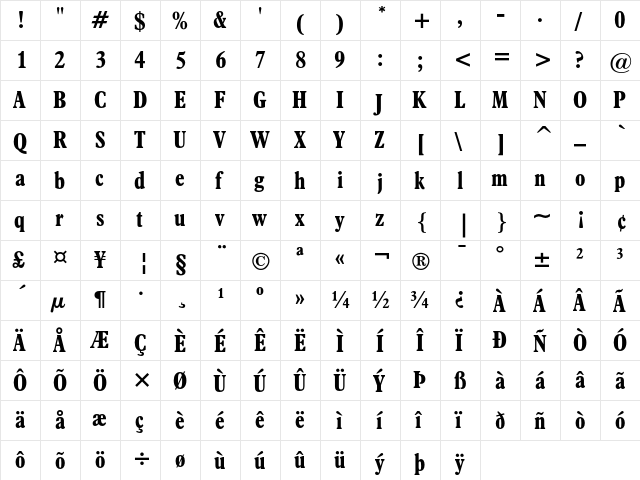
Aldine 721 Bold Condensed Font Preview
Design Context for Aldine 721 Typeface
Aldine 721 offers clean, dependable letterforms without strong stylistic allegiance, making it a practical choice for designers who need flexibility. The heavy weight commands attention and anchors typographic hierarchies. The condensed width makes it efficient for tight spaces without sacrificing legibility.
Pro Tip: Pair Aldine 721 with a font of contrasting weight or personality to build a more expressive typographic hierarchy.